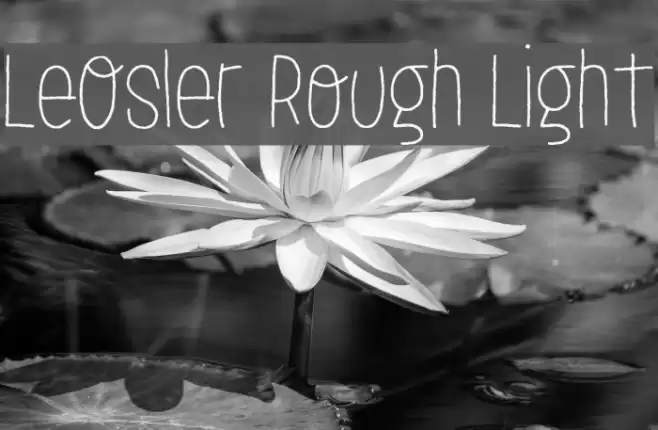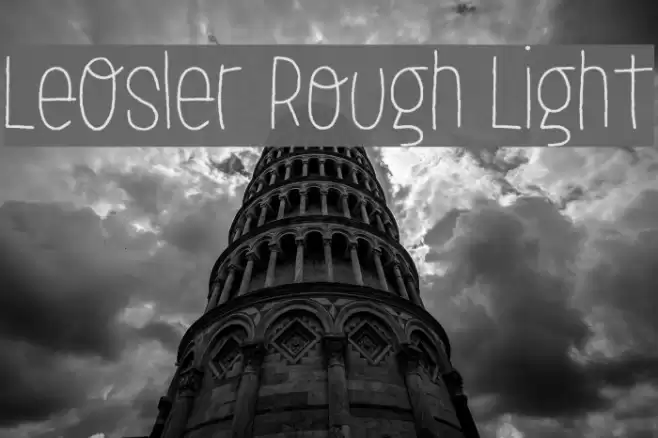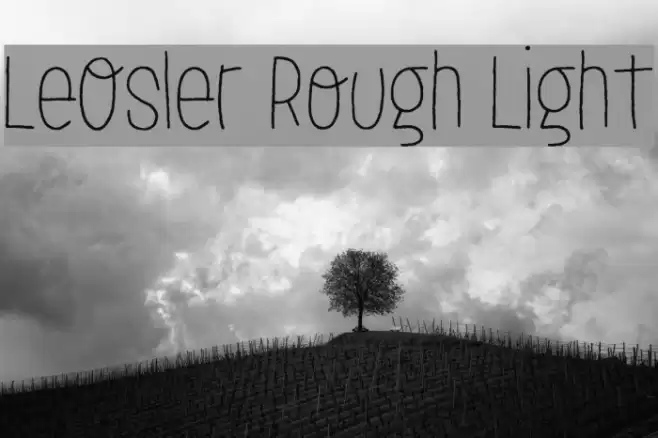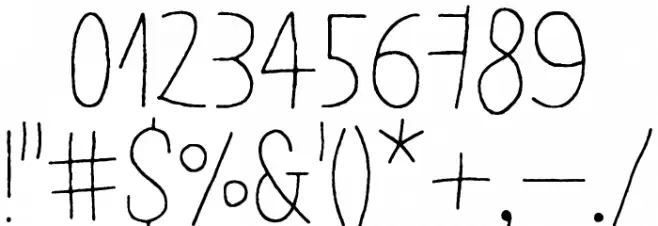
LeOsler Rough Light Font
LeOsler Rough Light Description
This font features a playful and informal handwritten style, characterized by its rough, textured lines that give it a casual and organic feel. The letters are tall and narrow, with a slight irregularity that adds to its charm. The uppercase and lowercase letters maintain a consistent height, while the numbers and special characters blend seamlessly with the overall design. This font's unique appearance makes it stand out, offering a personal touch that is both approachable and friendly.
A playful, rough-textured handwritten font with a casual, organic feel from Uncategorized fonts.
- Proposed Projects: Ideal for greeting cards, children's books, personal blogs, and creative branding projects.
- Overall Style: Casual, Playful
- Use Case: Headlines, Informal text, Creative projects